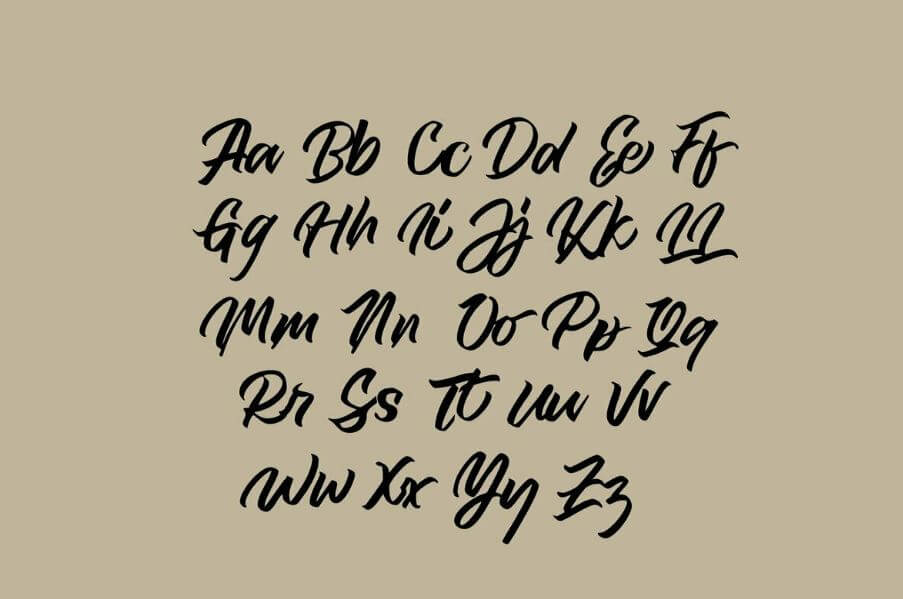
Royal Muffin Font
Royal Muffin Font is a brand new hand lettering typeface. This typeface is classified as ‘humanist’ as every personality of the font is developed with a focus on clarity and readability.
Prompted with the aid of real hand lettering font that looks like metro font writing for growing storefront signboard, branding and promotional commercials on the road.
Style Of Royal Muffin Font